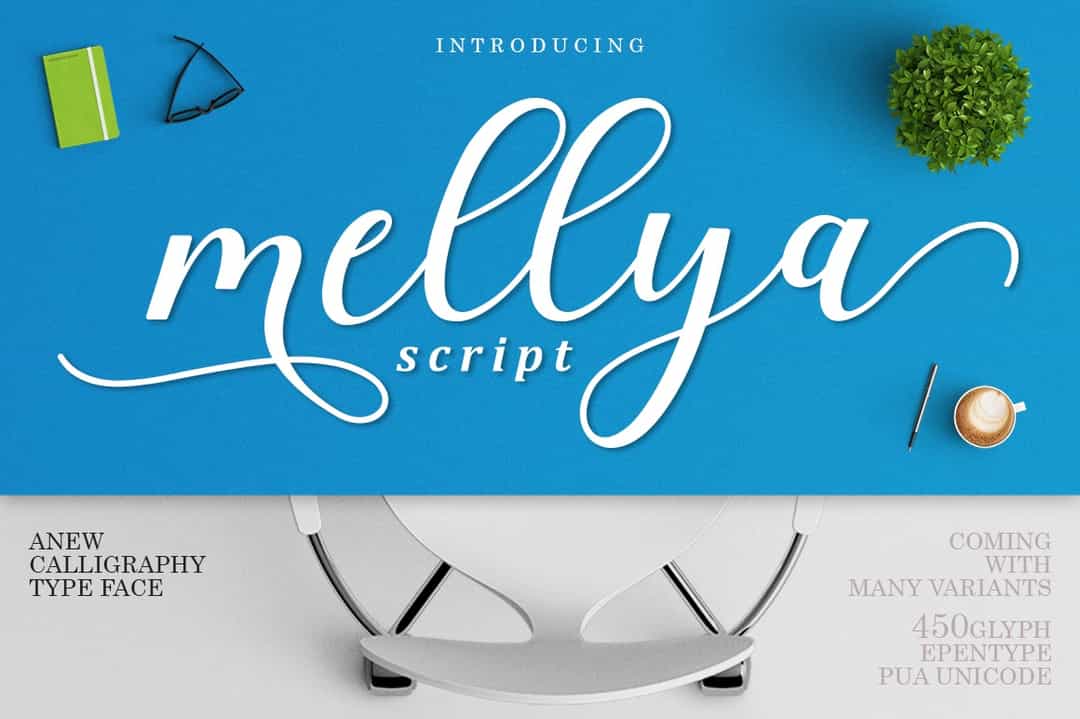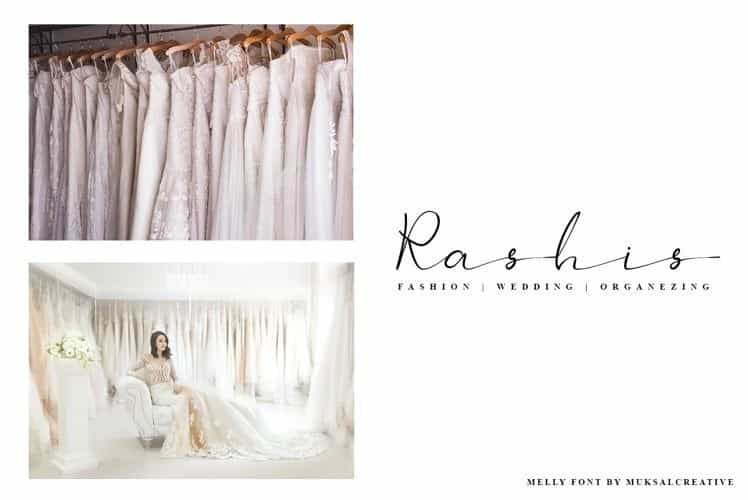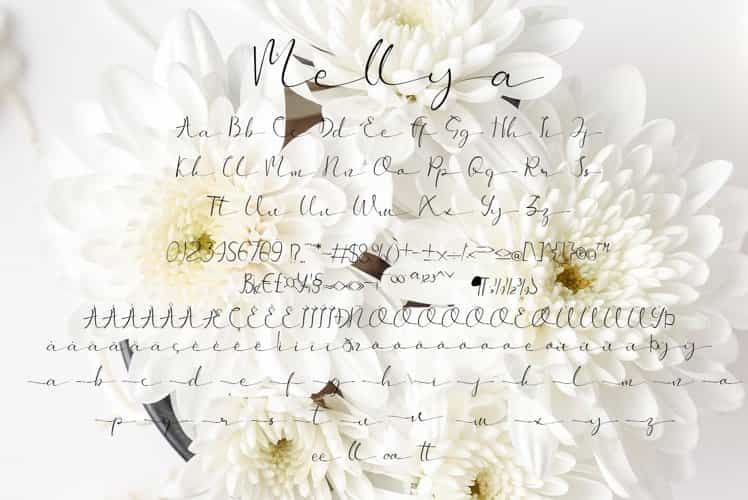
Mellya Font is a beautiful and exquisite calligraphy handwritten font. The font is cute and contains gorgeous symbols. It may be employed in your design collection encompassing invitations, mockups embossed, branding cards, and so on. The bonus is Extra Swashes.